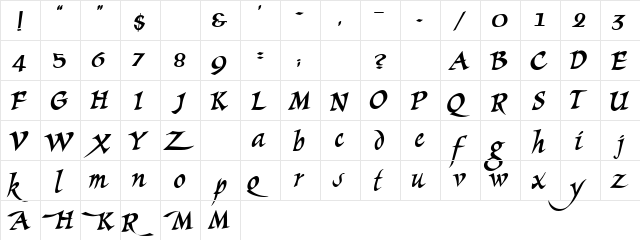
1 Braveheart DNA Regular
Design Context for 1 Braveheart DNA Typeface
1 Braveheart DNA takes a measured approach to typography — its balanced proportions and neutral character make it a reliable workhorse for both digital and print work.